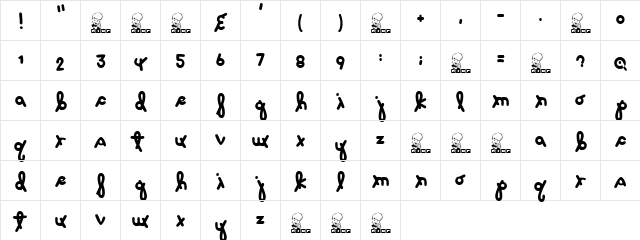
Kickstand Medium Font Preview
Kickstand Medium
Kickstand Medium Font Details
Design Context for Kickstand Typeface
Kickstand is a composed and adaptable typeface that performs quietly and consistently across a wide range of design contexts.